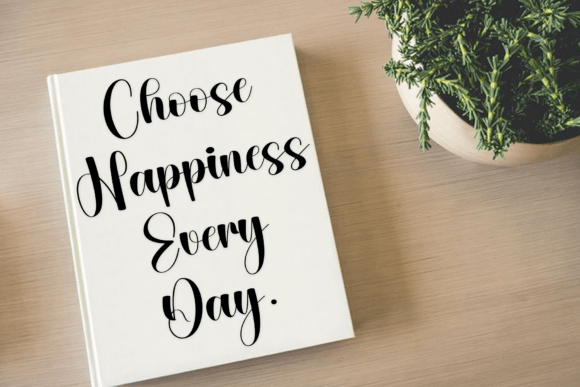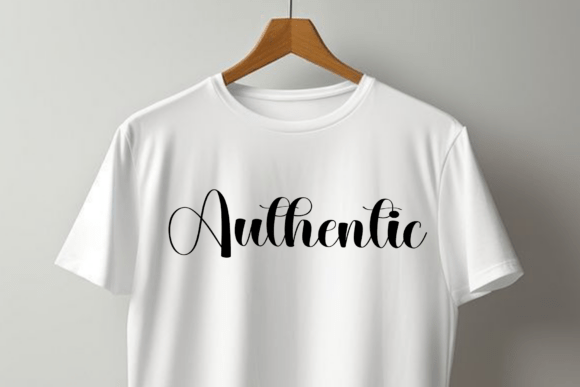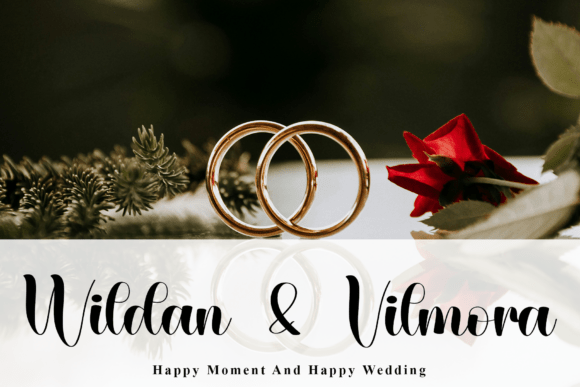
Introduction to Justime Font
As a designer, have you ever stared at a blank canvas, waiting for the perfect font to bring your creative project to life? The moment you find that elusive combination of style and sophistication is pure magic. And that’s exactly what Justime Font does – it’s the perfect marriage of artistic flair and contemporary elegance, making it a valuable addition to any designer’s toolkit.
Whether you’re crafting a logo, designing invitations, or creating social media graphics, Justime Font adds a touch of high-quality sophistication to your work. Its fluid brush strokes and dynamic curves evoke the feeling of hand-painted calligraphy, while its modern twist ensures it stays fresh and on-trend. And with its transparent background and free download options, it’s the perfect design resource for creatives on a budget.
So why settle for a generic font when you can make a statement with Justime Font? This versatile and expressive typeface is sure to elevate your designs and leave a lasting impression on your audience.
Key Features of Justime Font
- High-quality font with a transparent background, making it ideal for creative projects and designs.
- Unique and modern design, perfect for adding a touch of elegance to any creative project.
- Designed with a high-resolution output, ensuring crisp and clear text even at larger sizes.
- Supports a wide range of languages, making it a versatile design resource for international projects.
Honest Review: Justime Font
As a designer, I’m always on the lookout for high-quality design resources to elevate my creative projects. The Justime Font is a recent discovery that has piqued my interest, and I’m excited to share my honest review with you.
- What works well: ✨ The Justime Font boasts a clean, modern aesthetic that’s perfect for contemporary designs. Its sleek lines and minimalist feel make it an excellent choice for branding, advertising, and digital projects.
- What works well: ✨ The font also features a transparent background, making it easy to customize and integrate into your designs.
- Limitations: ⚠️ While the Justime Font is a solid choice for many design projects, it may not be the best option for projects that require a more ornate or traditional feel.
- Limitations: ⚠️ Additionally, the font’s versatility is somewhat limited by its lack of bold or italic styles.
Overall, I’m impressed with the Justime Font’s high quality and ease of use. It’s a great addition to any designer’s toolkit, and I’m happy to recommend it to my fellow creatives.
Tips for Getting the Most Out of Justime Font
To get the most out of the Justime Font, experiment with different font sizes, colors, and combinations. Use the font’s transparent background to create unique designs and compositions. You can also use the font in conjunction with other design elements to create a cohesive look.
The Justime Font is ideal for a variety of creative projects, including logos, branding, and packaging design. It’s also suitable for digital design, such as social media graphics and website design. The font’s high quality and transparent background make it a versatile design resource for any project.